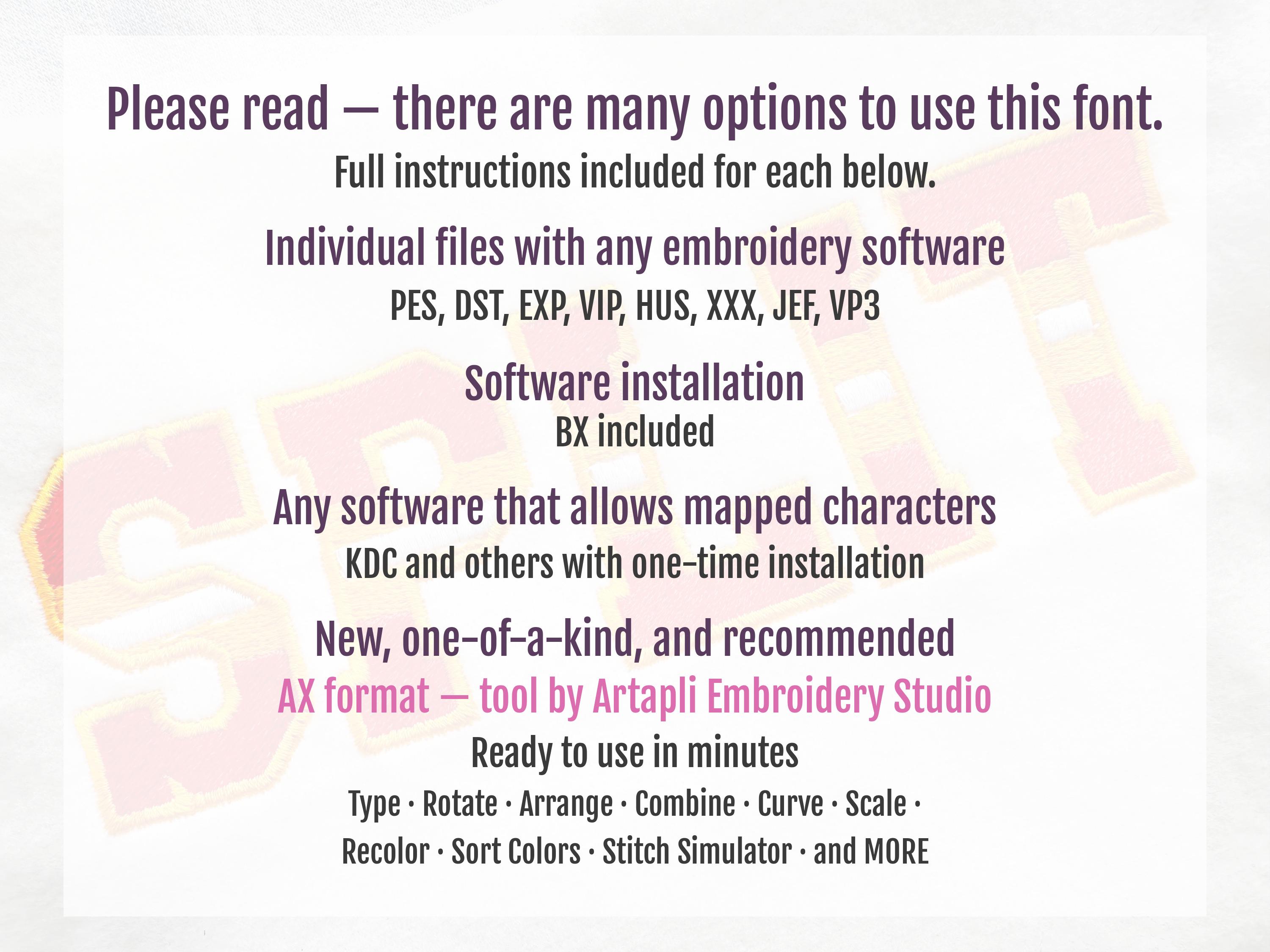
Sports Varsity Collegiate type FONT fill stitch and outline striped alphabet monogram letters machine embroidery designs sizes 1.7 up to 3.2 inch
Entire alphabet capital letters A-Z.
Awesome sports alphabet has fill stitches and a nice satin stitch outline.